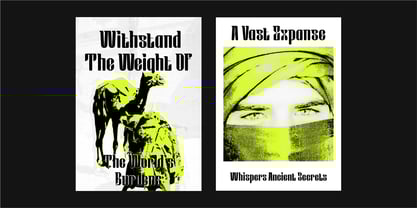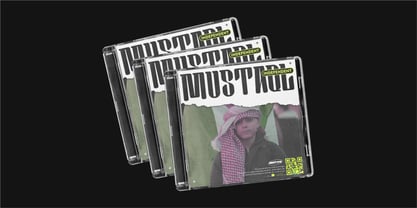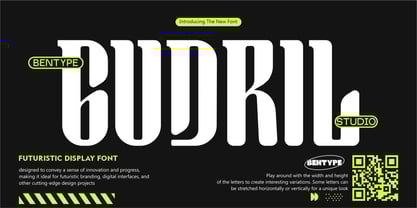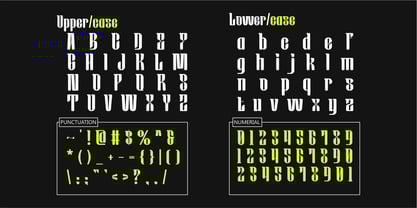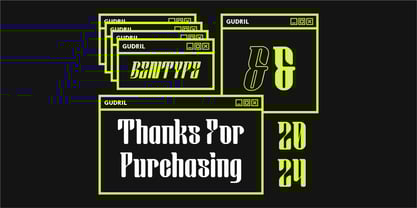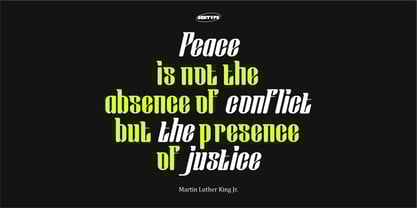
Gudril
by Bentype
The Gudril Font Family was designed by Muhammad Farkhan and published by Bentype. Gudril contains 2 styles.
Gudwil - Futuristic Display fonts embody the spirit of innovation, technology, and forward-thinking design. Gudwil - Futuristic Display fonts typically feature sleek, clean lines, geometric shapes, and often incorporate elements that convey a sense of futurism, such as sharp angles, unconventional letterforms, and dynamic spacing. Font Includes Upper Case Lower Case Numbers Punctuation